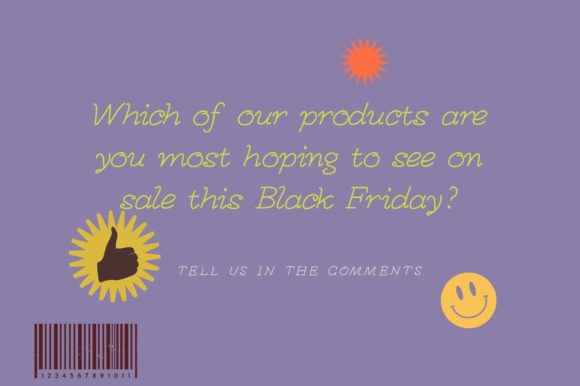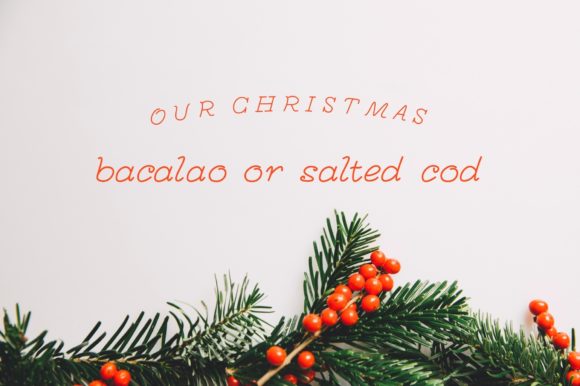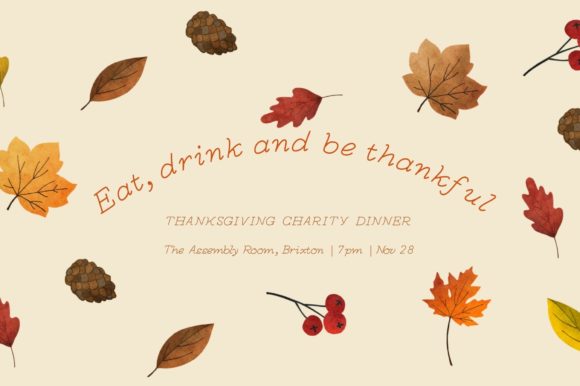
Valeria Font
About Valeria Font
Introducing “Valeria,” a delicate and elegant handwritten font designed to elevate your designs with its flowing beauty. With its well-balanced characters and graceful strokes, Valeria adds a touch of sophistication to any project. Whether you’re creating wedding invitations, branding materials, packaging, or social media graphics, this font effortlessly enhances your most creative ideas and brings them to life.
Valeria’s flowing script exudes charm and elegance, making it perfect for a wide range of design applications. Its delicate strokes and well-balanced characters create a sense of harmony and beauty, capturing the eye and captivating the imagination.
Experience the magic of Valeria and watch as it transforms your designs into stunning works of art. Whether you’re a professional designer or a creative enthusiast, this font invites you to explore new avenues of creativity and express yourself with confidence and style.
Unlock the full potential of your designs with Valeria and let its delicate and elegant beauty inspire you to create unforgettable designs. With its flowing script and timeless charm, this font is sure to become a beloved addition to your design toolkit, adding a touch of sophistication to every project.